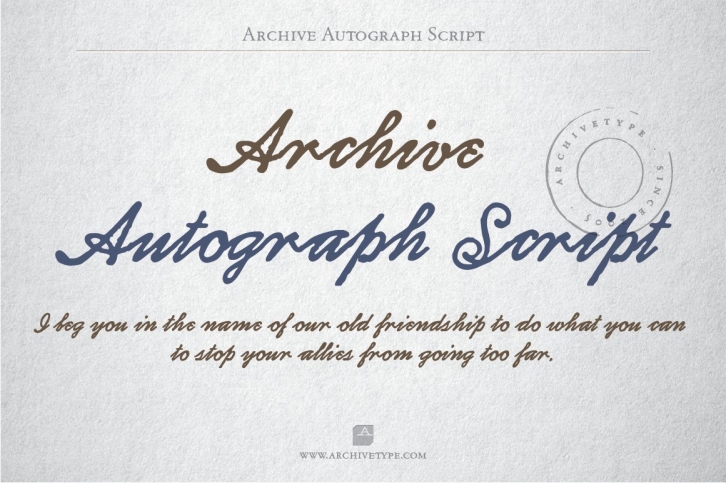
Archive display typefaces are reproduced as they appeared in print. In order to preserve the original feel of typefaces, no additional characters were added to originals, therefore, most of the fonts consist just of a basic character set. Upper case letters, lower case letters, numerals and basic punctuation.